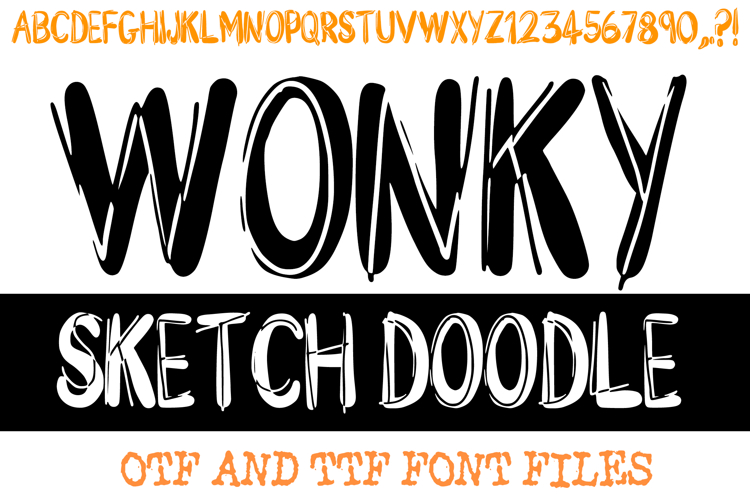
Unleash playful charm with Wonky Sketch Doodle Font! This unique, hand-drawn typeface features charmingly irregular, wobbly outlines that give each letter a distinct, lovable personality. Perfect for injecting spontaneous fun into any project, this font evokes a casual, artistic sketch feel.
Ideal for children's books, quirky branding, comic art, social media, and greeting cards. Its clear, imperfect lines offer readability with a whimsical touch. If you need creative flair, charming imperfection, and an undeniable artistic vibe, Wonky Sketch Doodle Font is your go-to.